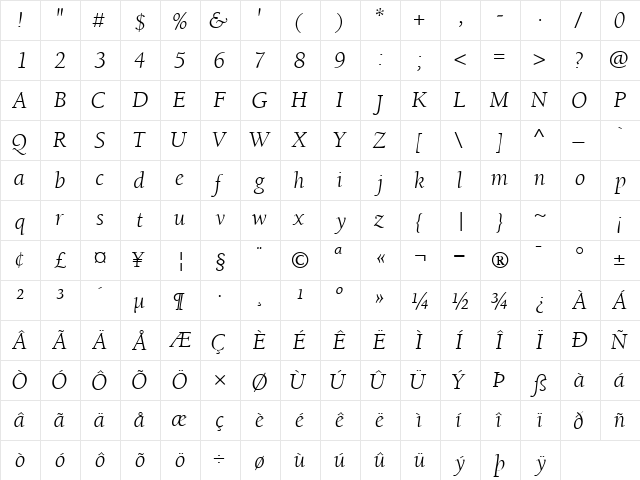
BerkeleyRetrospectiveBookSSK Italic
Design Context for BerkeleyRetrospectiveBookSSK Typeface
BerkeleyRetrospectiveBookSSK has the warm character of retro typography — evoking diners, record sleeves, and the golden age of print advertising. The dynamic lean of this cut emphasises speed and emphasis in any layout.
Perfect for vintage-inspired branding, retro packaging, nostalgia campaigns, and period-accurate editorial design.
Font Pairing: Combine BerkeleyRetrospectiveBookSSK with a simple slab or neutral sans — period-accurate companions reinforce the vintage feel without competing for attention.
Pro Tip: Use BerkeleyRetrospectiveBookSSK for headlines and pull quotes rather than body copy — its personality is best appreciated in short, focused bursts.